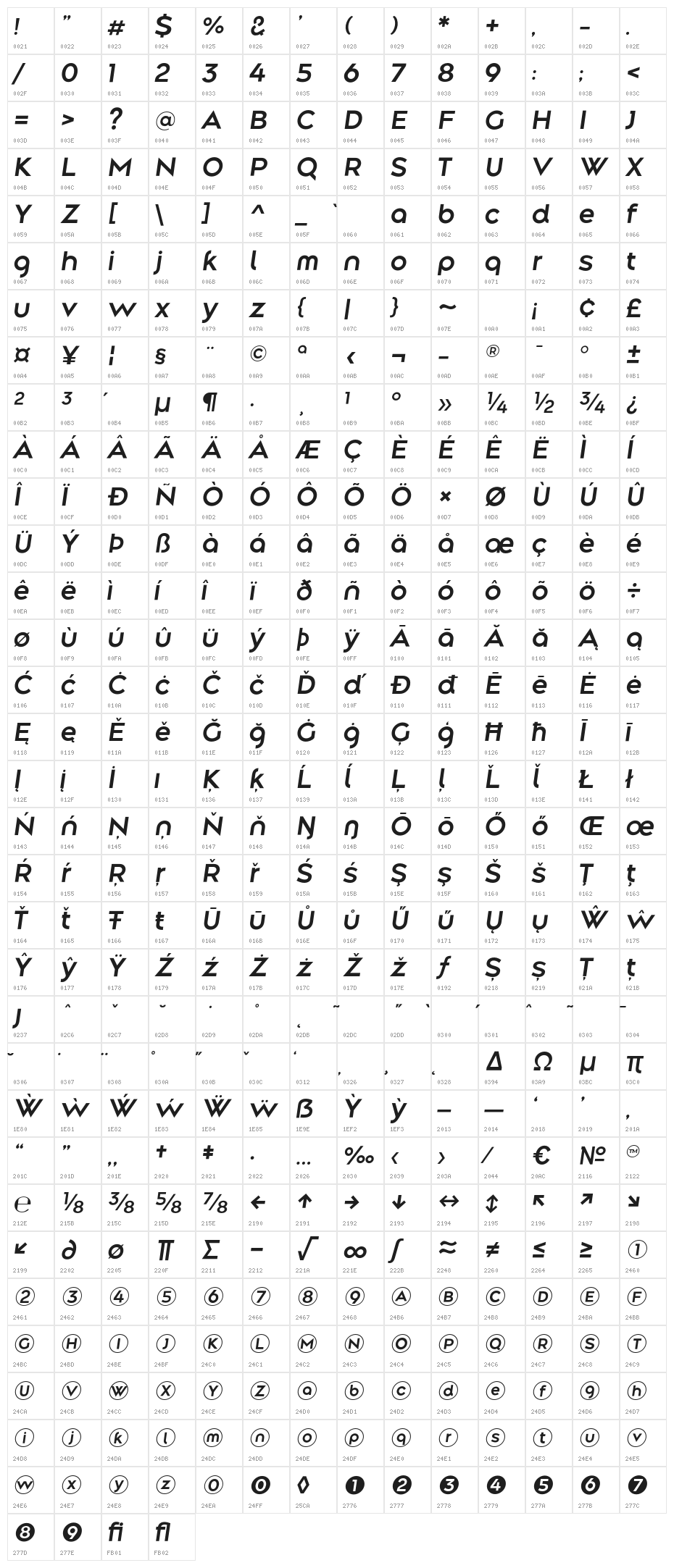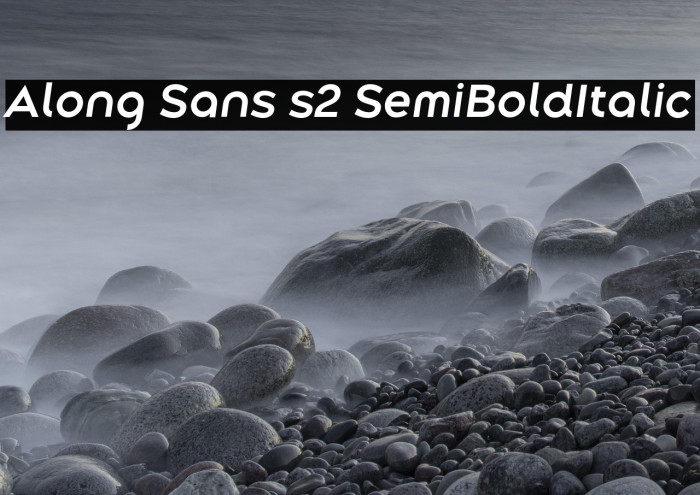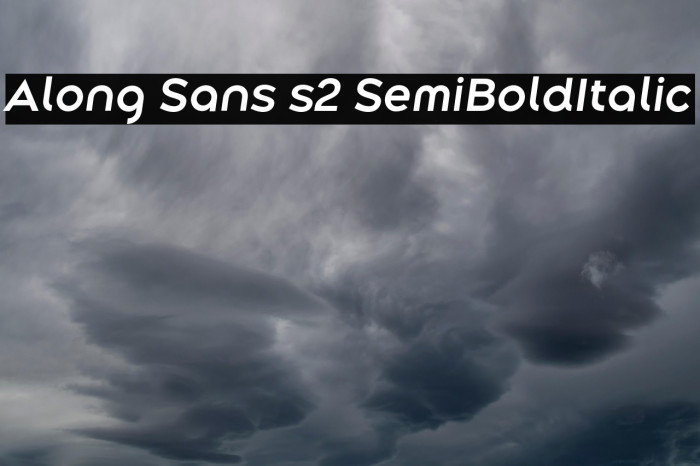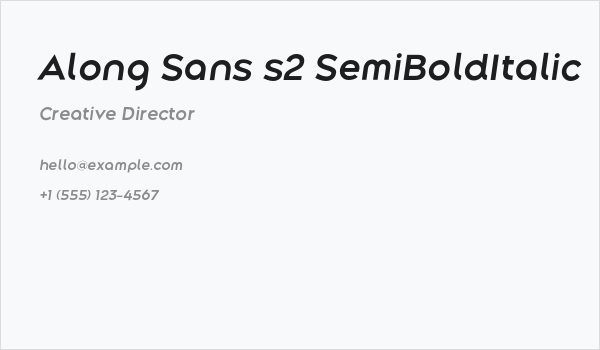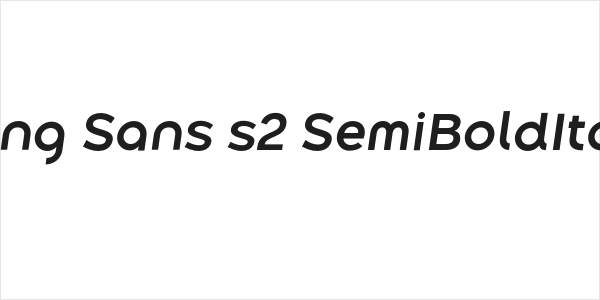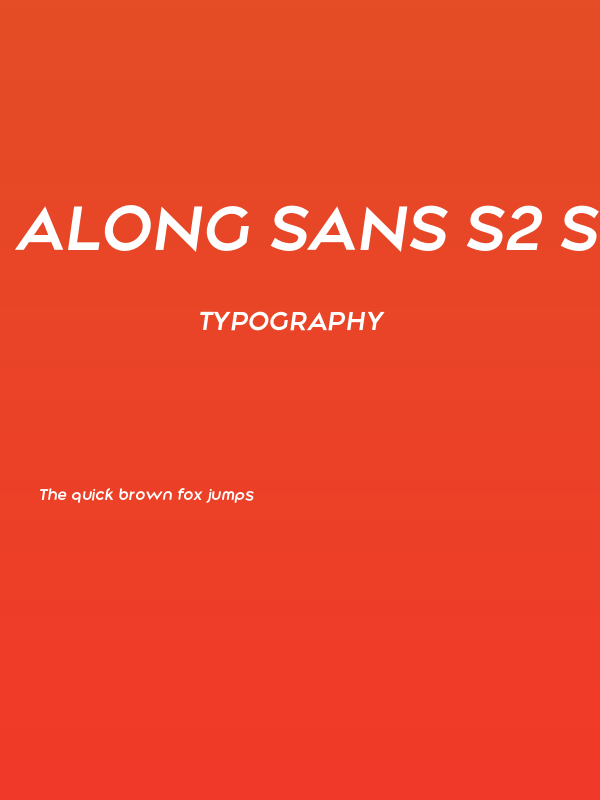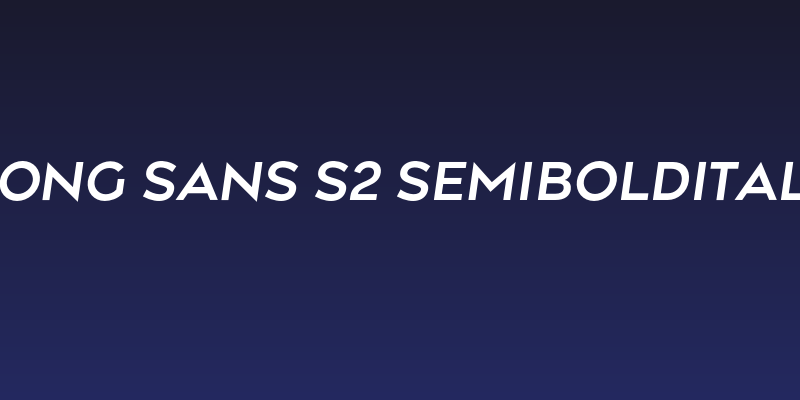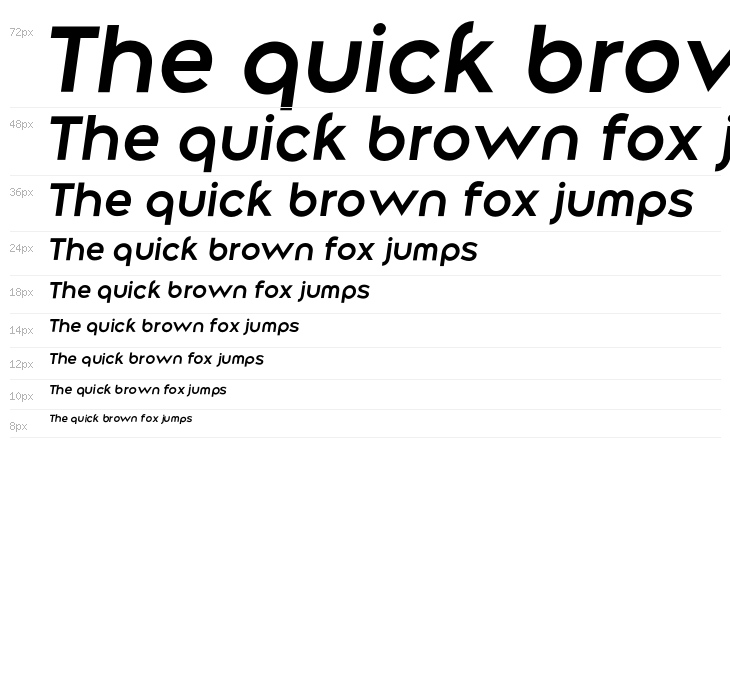
Along Sans s2 SemiBoldItalic Font
Along Sans s2 SemiBoldItalic Description
This typeface exhibits a sleek and contemporary design, characterized by its clean lines and slightly italicized form. The uppercase letters are bold and assertive, while the lowercase letters maintain a smooth and cohesive flow. The numerals are clear and well-defined, ensuring readability. Special characters are crafted with precision, adding to the font's versatility. The overall appearance is modern and professional, making it suitable for a wide range of applications. The semi-bold weight provides a balanced presence, neither too heavy nor too light, which enhances its adaptability in various design contexts.
| Proposed Projects | Ideal for branding, advertising, web design, and editorial projects where a modern and professional look is desired. |